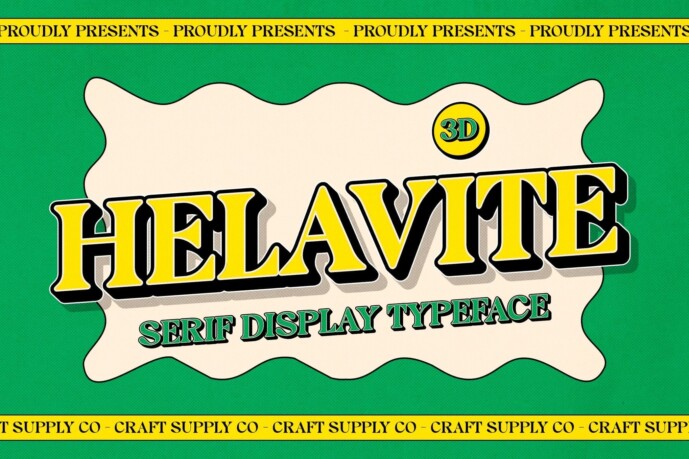
Helavite 3D Font
Helavite 3D Font – Modern Elegance in Every Dimension
Sleek Serif Meets Dimensional Design Helavite 3D is a modern serif font that fuses minimalist structure with a subtle 3D effect, creating a look that is both stylish and sophisticated. Its crisp lines and refined forms deliver clarity and impact, ideal for upscale visual communication.
Clean and Contemporary Appeal Designed with modern sensibilities in mind, Helavite 3D offers a minimalist aesthetic that feels fresh and timeless. The clean serif strokes and graceful typographic details lend it a professional tone suitable for high-end branding and editorial layouts.